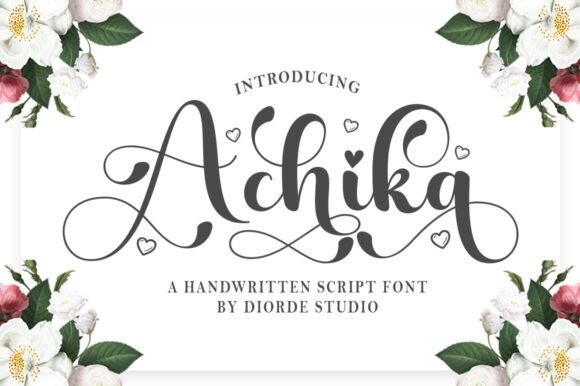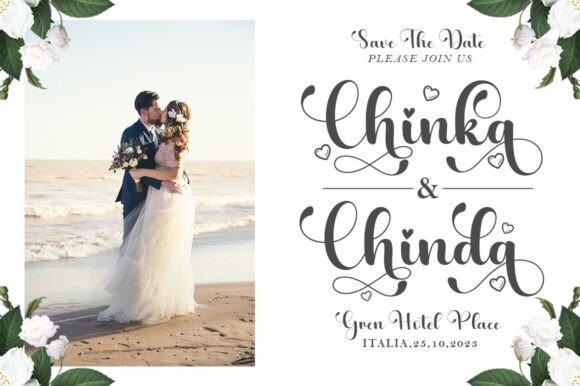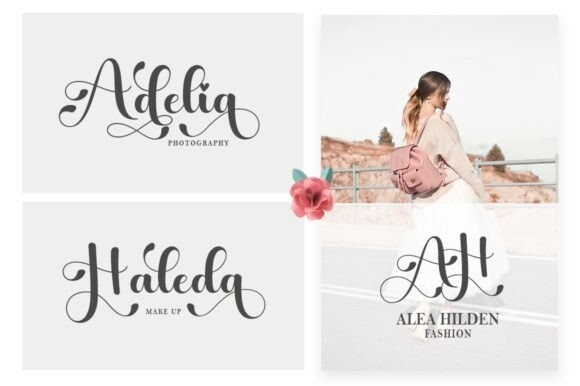
Achika Font
Achika is a romantic and delicate handwritten font that emanates splendor and kindliness. This font was particularly crafted for those who need a magnificent and refreshing touch to their designs. This font is PUA encoded which means you can access all of the amazing glyphs and ligatures freely!